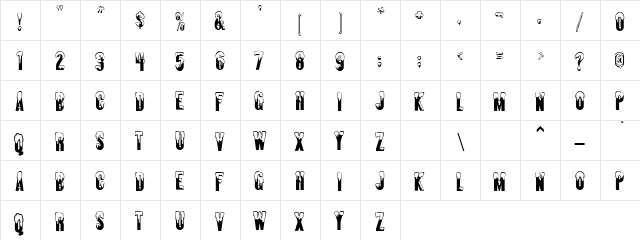
Punch on Top Regular
Design Context for Punch on Top Typeface
Punch on Top is a composed and adaptable typeface that performs quietly and consistently across a wide range of design contexts.